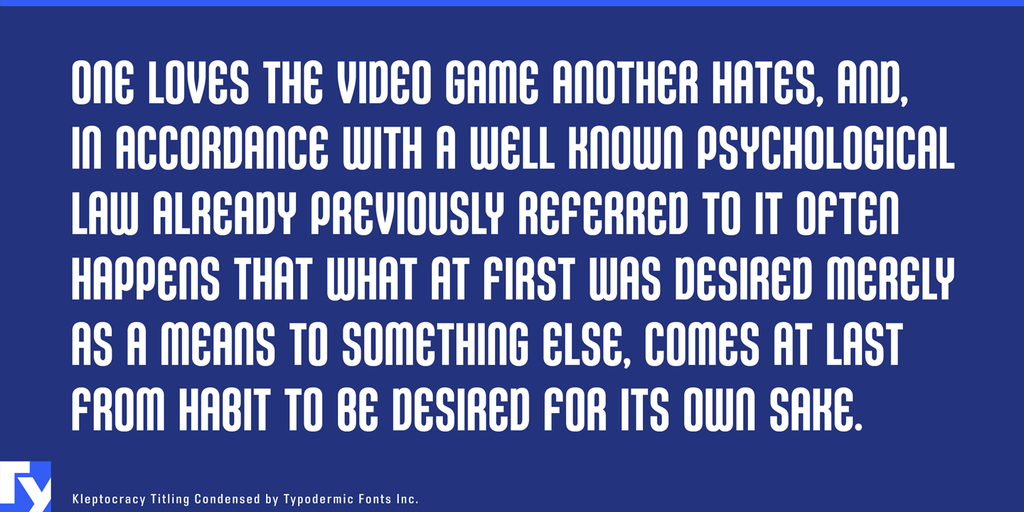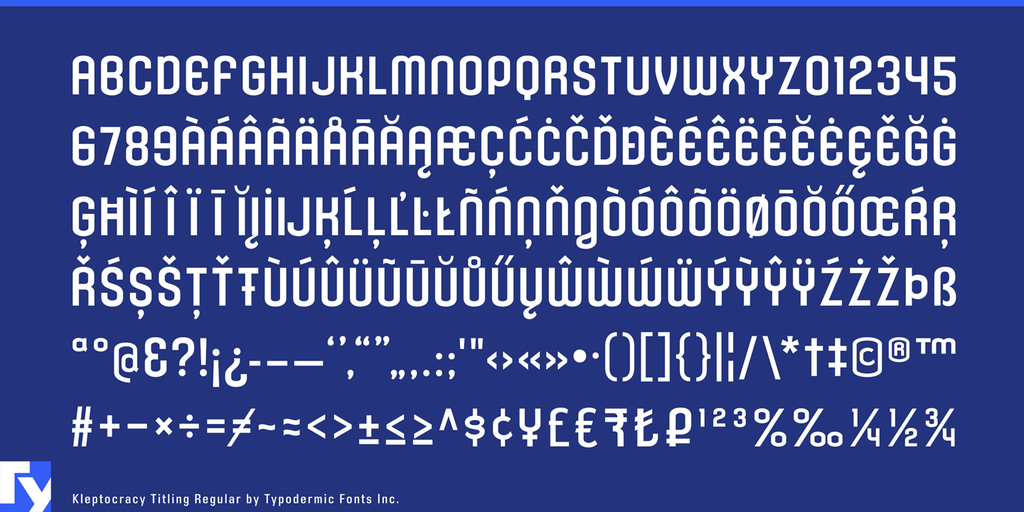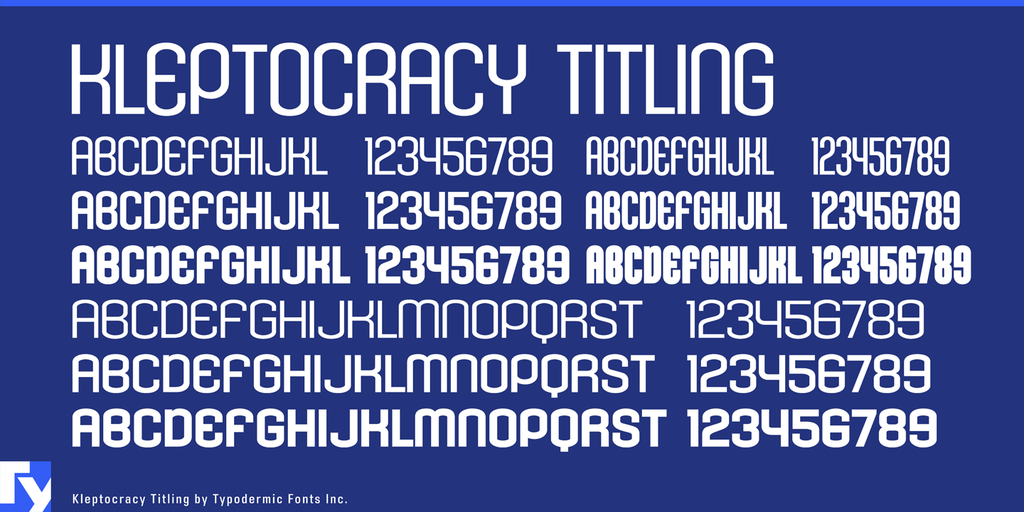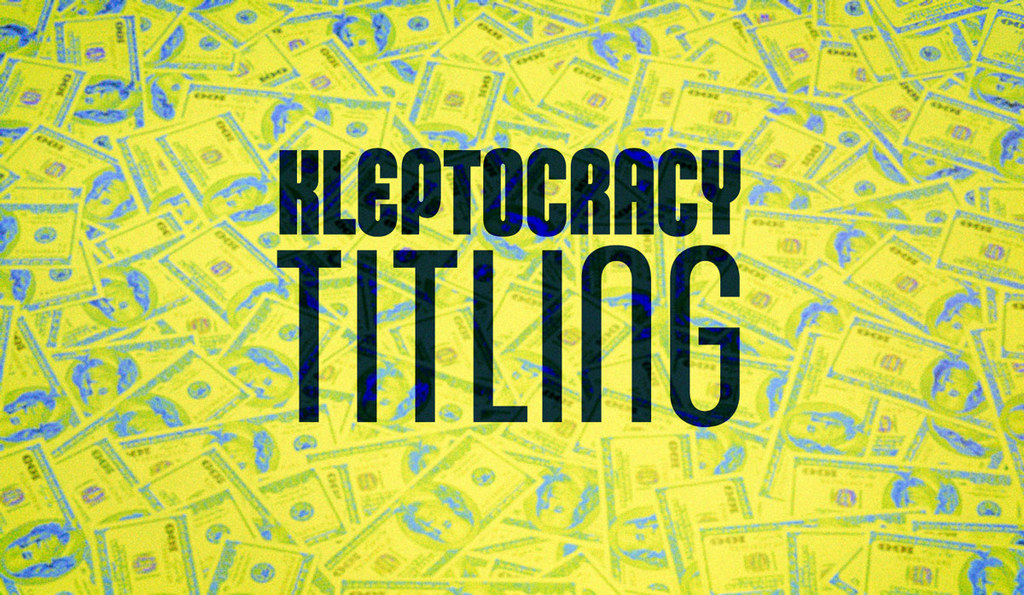
Kleptocracy Titling Font Family
Kleptocracy Titling is an all-caps industrial display system organized into three weights and three widths. Its blunt construction and condensed options suit political satire, protest graphics, game factions, album art, editorial headlines, warehouse signage, fictional institutions, packaging, and identities that need an authoritarian voice with room for variation.